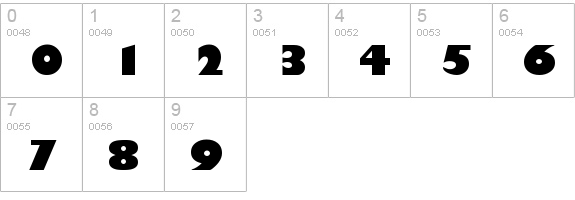
Trumania EEN Plain font is a versatile and elegant typeface that is perfect for adding a touch of sophistication to any design project. With its clean lines and modern aesthetic, this font is sure to make a statement. The Trumania EEN Plain font is ideal for a wide range of applications, from branding and advertising to editorial design and packaging. Its simplicity and legibility make it a great choice for both print and digital projects. One of the best things about Trumania EEN Plain font is that it is free to download. Whether you are a professional designer or a hobbyist, you can easily access this font at FontsMarket.com without having to spend a dime. Its availability for free makes it a valuable resource for anyone looking to enhance their designs without breaking the bank. The versatility of Trumania EEN Plain font is its biggest strength. It is equally effective in large headlines as it is in body text, making it a go-to choice for designers looking for a font that can do it all. Its clean and modern look adds a sense of professionalism and sophistication to any project, ensuring that your designs stand out from the crowd. With Trumania EEN Plain font, you have the freedom to be creative and experiment with different styles and layouts. Its clean and minimalist design allows it to seamlessly integrate into any design concept, enhancing the overall aesthetic. In conclusion, Trumania EEN Plain font is a must-have for any designer looking to elevate their projects. Its clean lines, modern aesthetic, and versatility make it a valuable asset. And the best part? It is freely available to download at FontsMarket.com, making it accessible to anyone in need of a high-quality font. So go ahead and unleash your creativity with Trumania EEN Plain font!